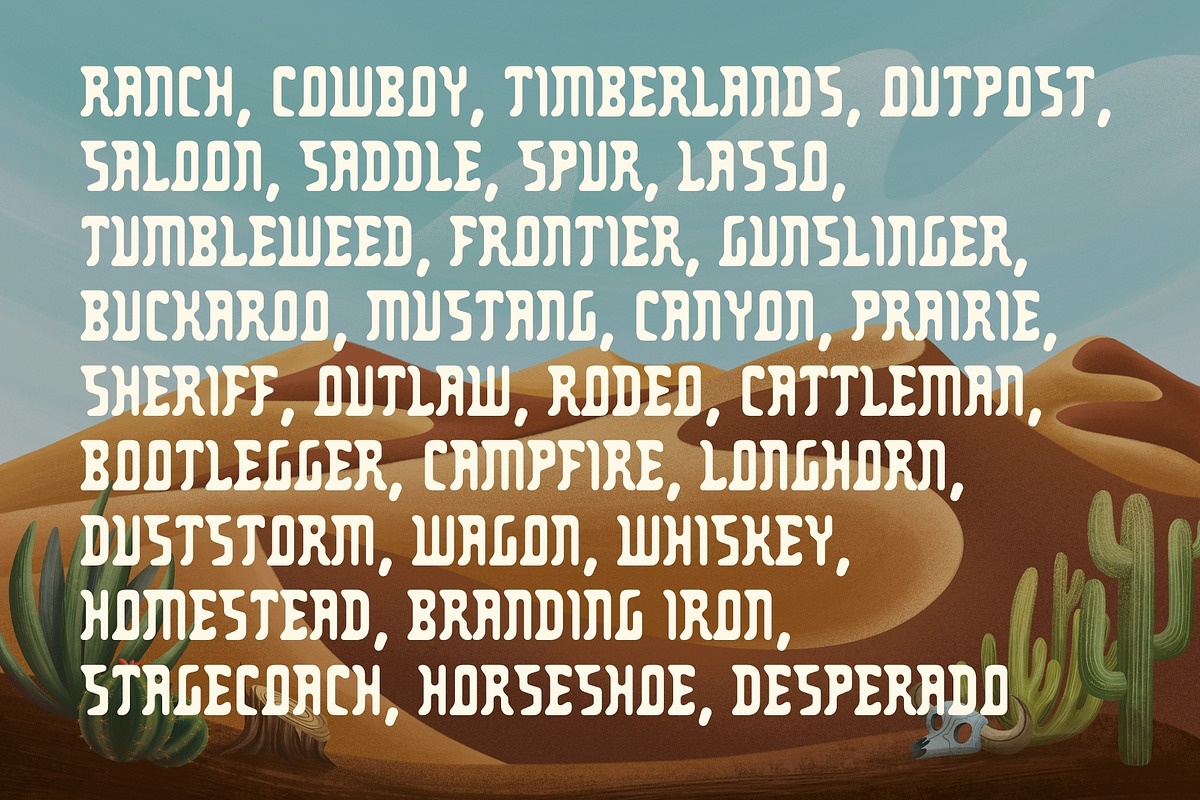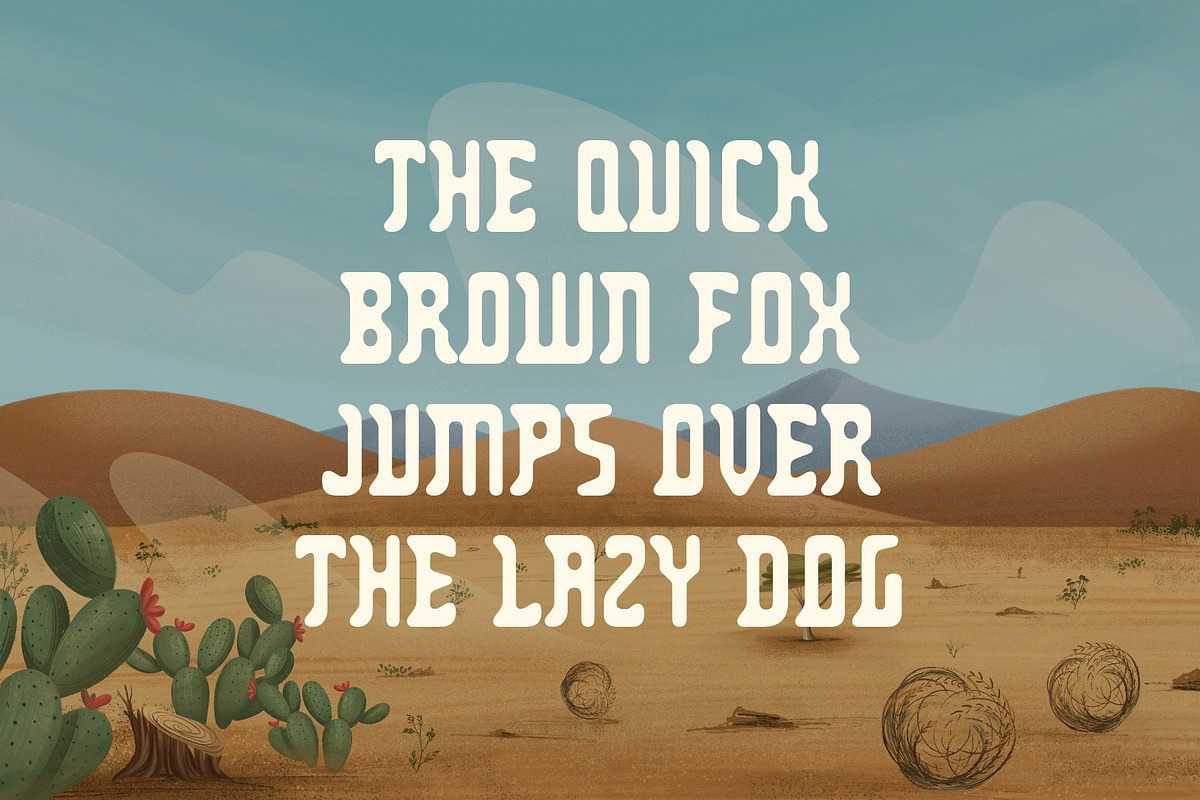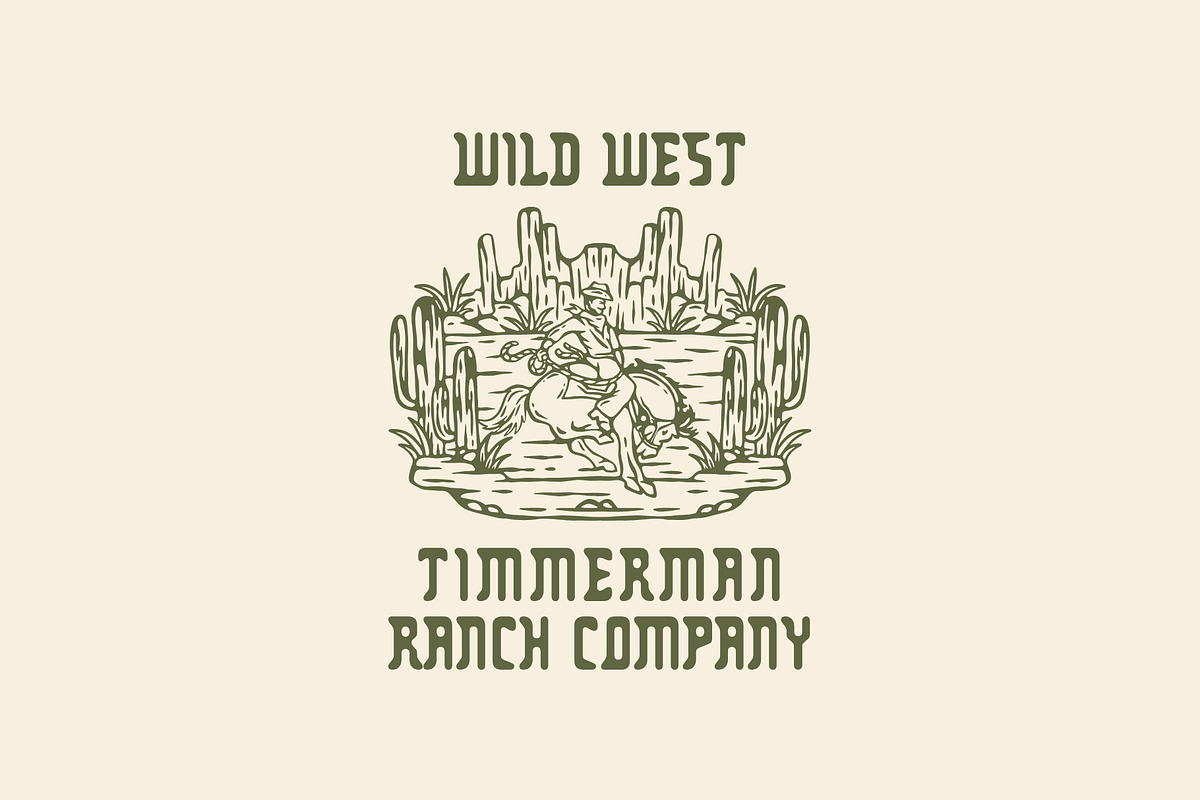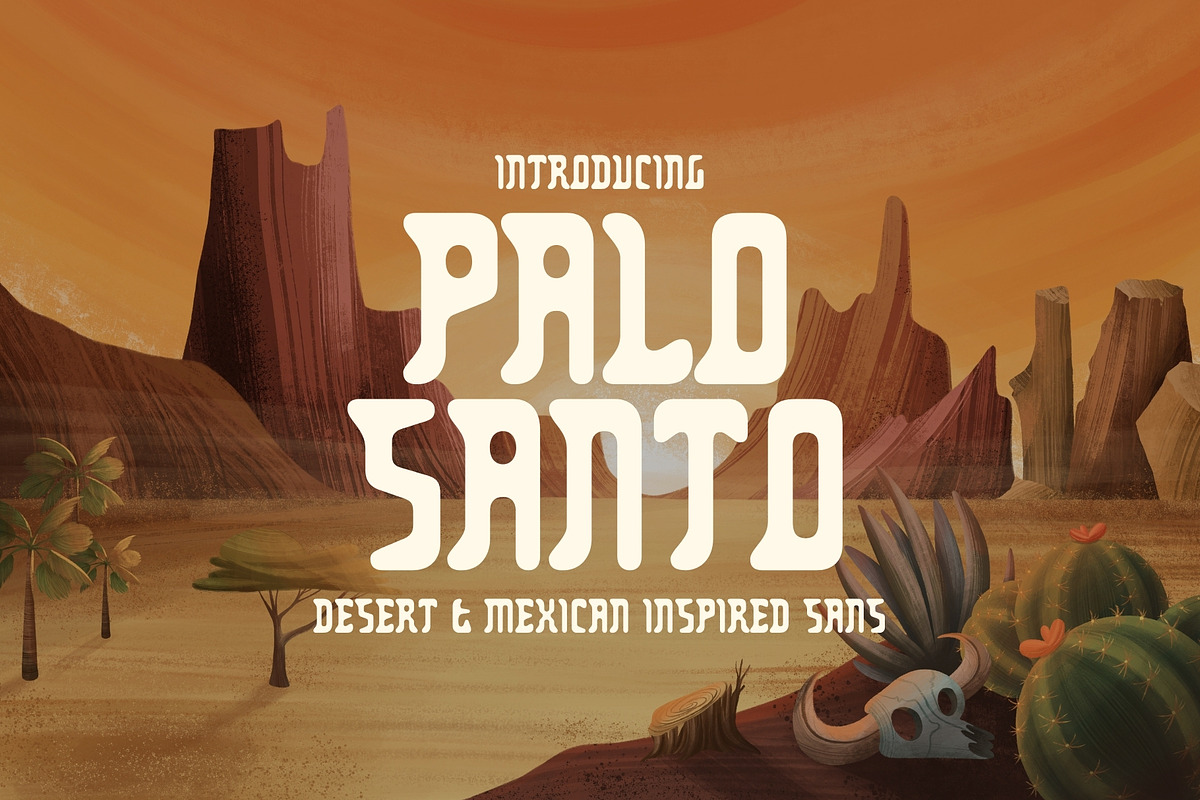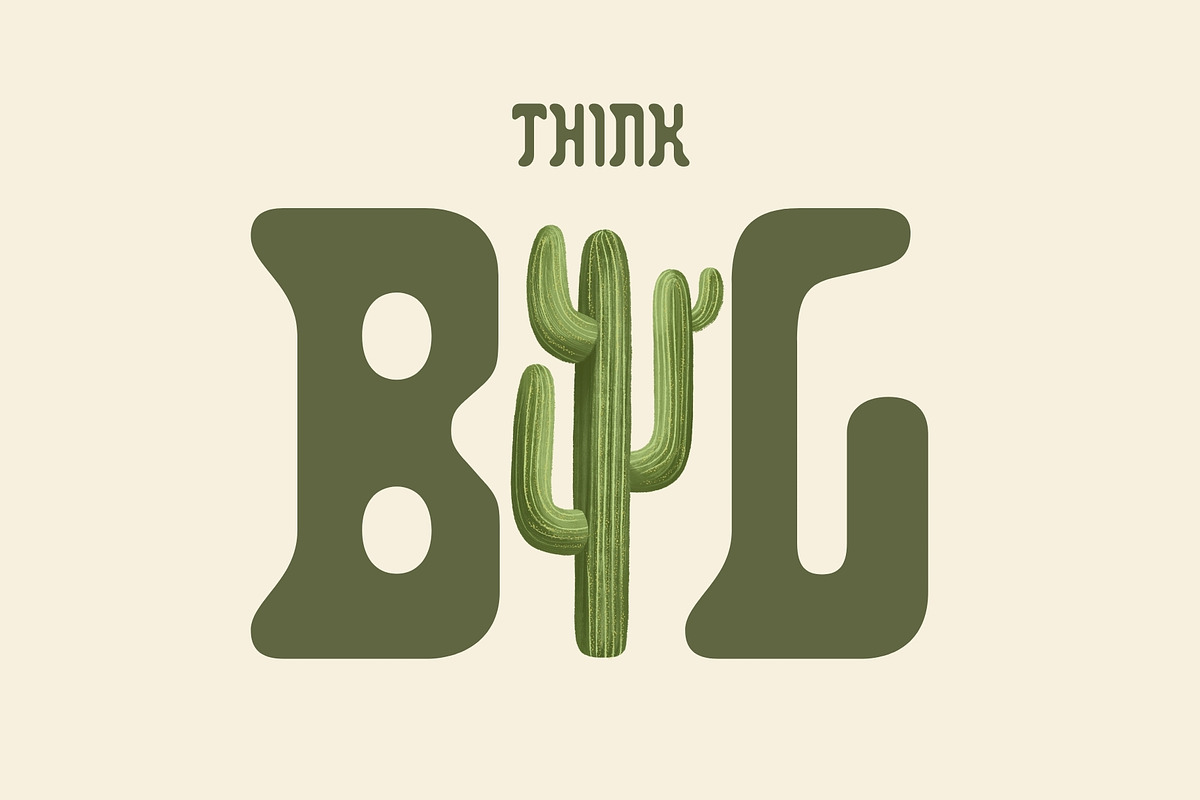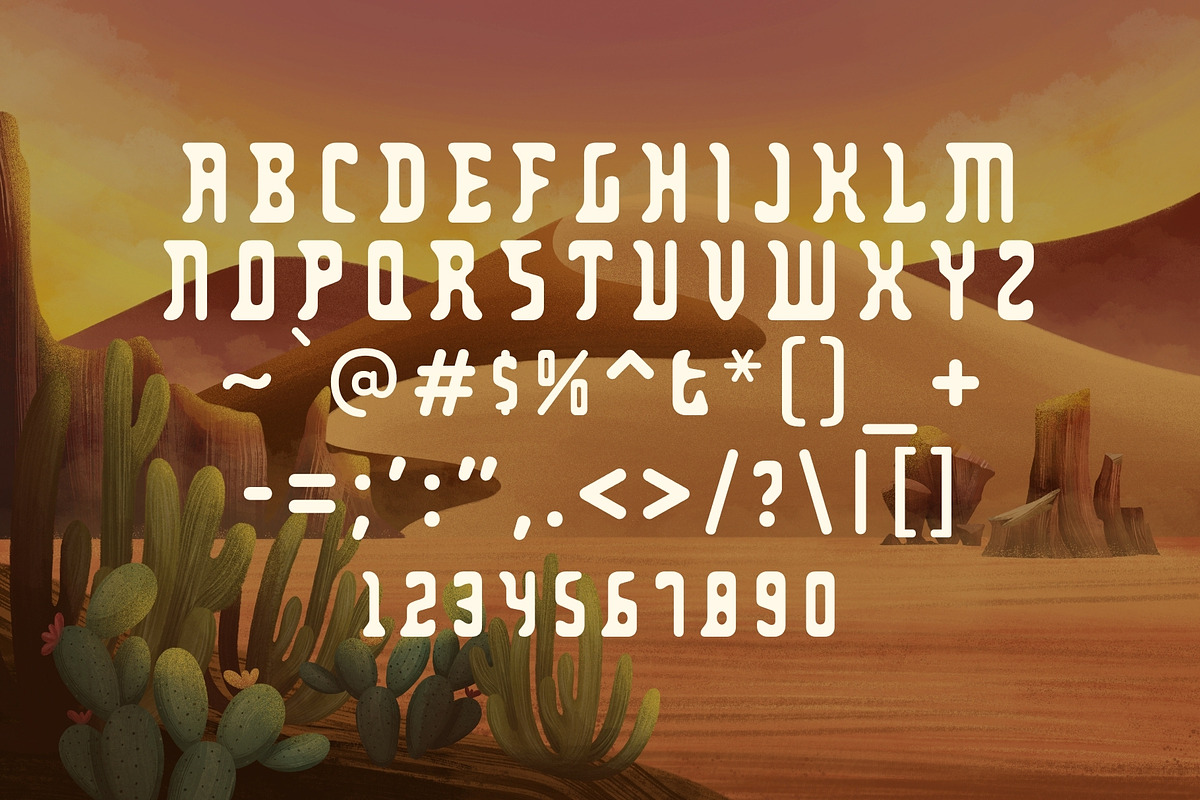
Palo Santo - Mexican Desert Typeface
Palo Santo is a bold, character-rich sans serif inspired by the desert southwest, Wild West signage, and Mexican folk typography. It blends rugged simplicity with cultural warmth, making it feel authentic, grounded, and confidently handmade — without looking rough or dated.
This font is built for impact and clarity. Strong letterforms, balanced proportions, and subtle personality details make Palo Santo highly readable at large sizes while still carrying enough attitude to stand out in branding and display work.
Palo Santo shines in projects that need a desert, western, or Latin-inspired tone without leaning into clichés. It feels equally at home on tequila labels, western posters, boutique branding, festival flyers, apparel graphics, and signage that needs to feel timeless and bold.
Designed with designers and small businesses in mind, Palo Santo gives you a versatile display font that instantly adds atmosphere, confidence, and regional character to your work — without overpowering the design.